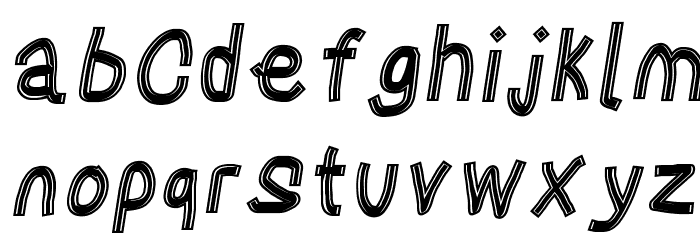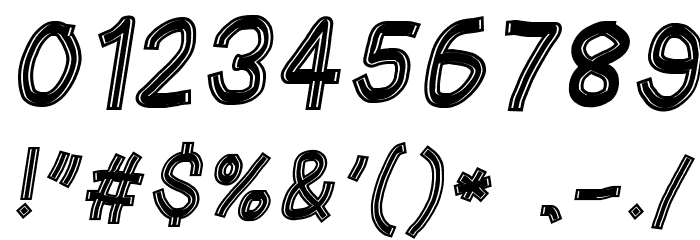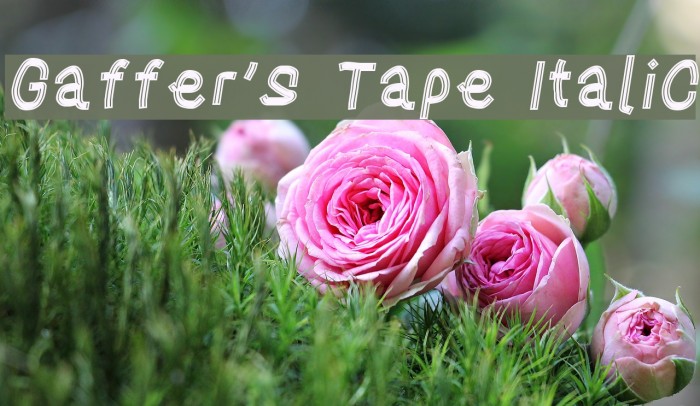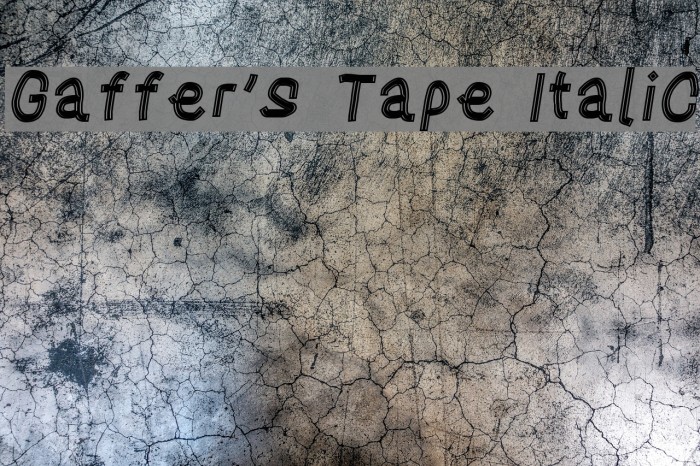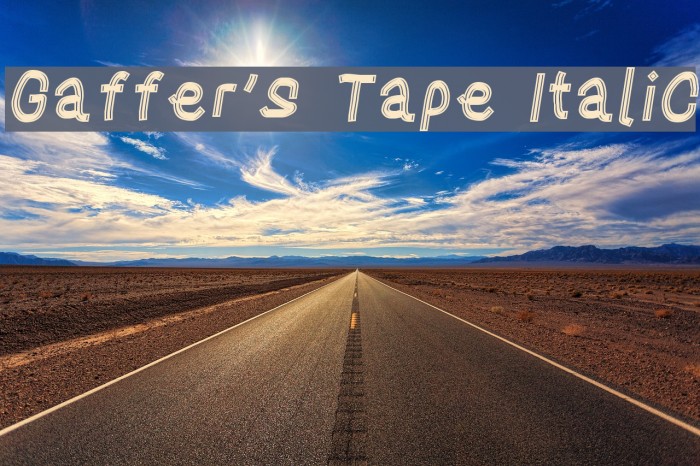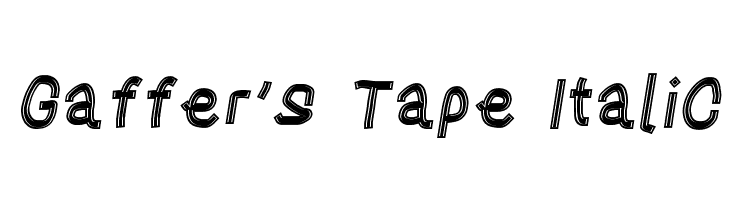
Gaffer's Tape Italic Font
This font features a bold, dynamic style with a distinct italic slant, giving it a sense of movement and energy. The characters are designed with a three-dimensional effect, resembling strips of tape layered to form each letter. The strokes are thick and consistent, with a playful, hand-drawn appearance that adds a unique, artistic flair. The uppercase and lowercase letters maintain a cohesive look, while the numerals and special characters complement the overall design. This font is ideal for projects that require a bold statement and a creative touch.
A bold, italic font with a tape-like, three-dimensional style.
- Proposed Projects: Ideal for posters, branding, packaging, and creative advertising campaigns.
- Overall Style: Modern, Artistic